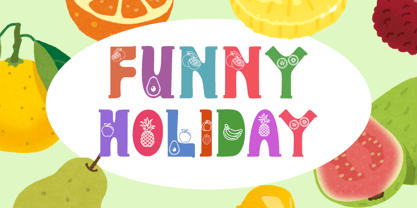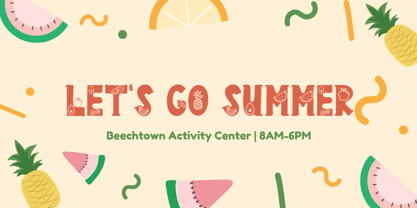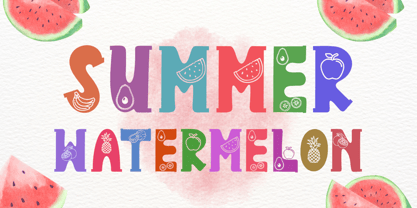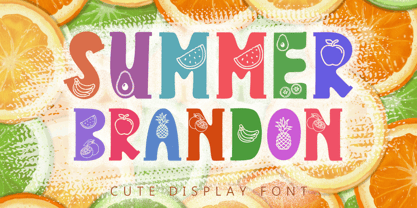
Summer Brandon
by Yoga Letter
The Summer Brandon Font Family was designed by Isroni Yoga Prasetya and published by Yoga Letter. Summer Brandon contains 1 styles. More about this family
"Summer Brandon" is a unique and elegant display font. It comes with uppercase, lowercase, numbers, punctuation, and multilingual support. It is perfect for use in summer, spring, vacation, camping, banners, posters, prints, book covers, coloring books, etc.
Designers: Isroni Yoga Prasetya
Foundry: Yoga Letter